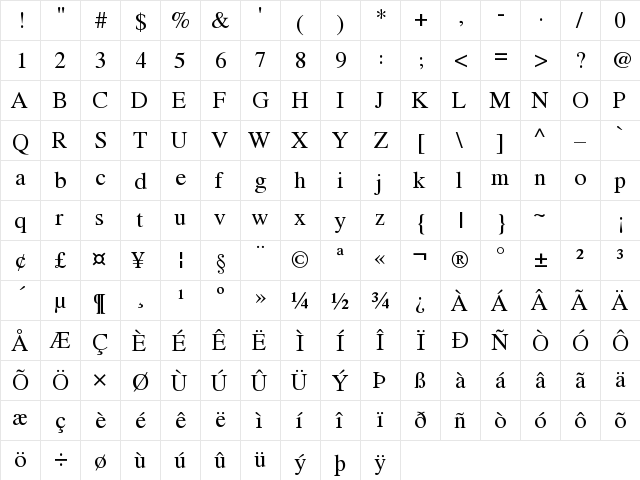
WinSoft Serif Pro Medium
Design Context for WinSoft Serif Pro Typeface
WinSoft Serif Pro carries the refined structure of traditional serif typography, with bracketed terminals and considered proportions that communicate credibility and craft.
Pro Tip: Use WinSoft Serif Pro for editorial body copy and considered headline work. Pair with a neutral sans for UI elements or captions to create a classic hierarchy.